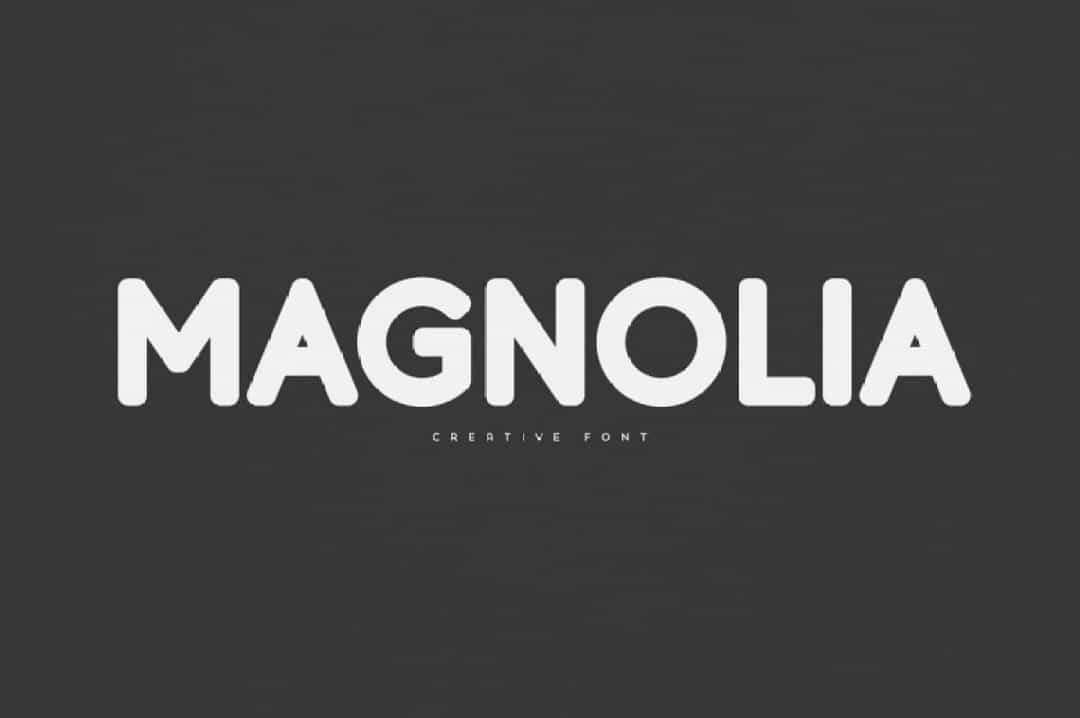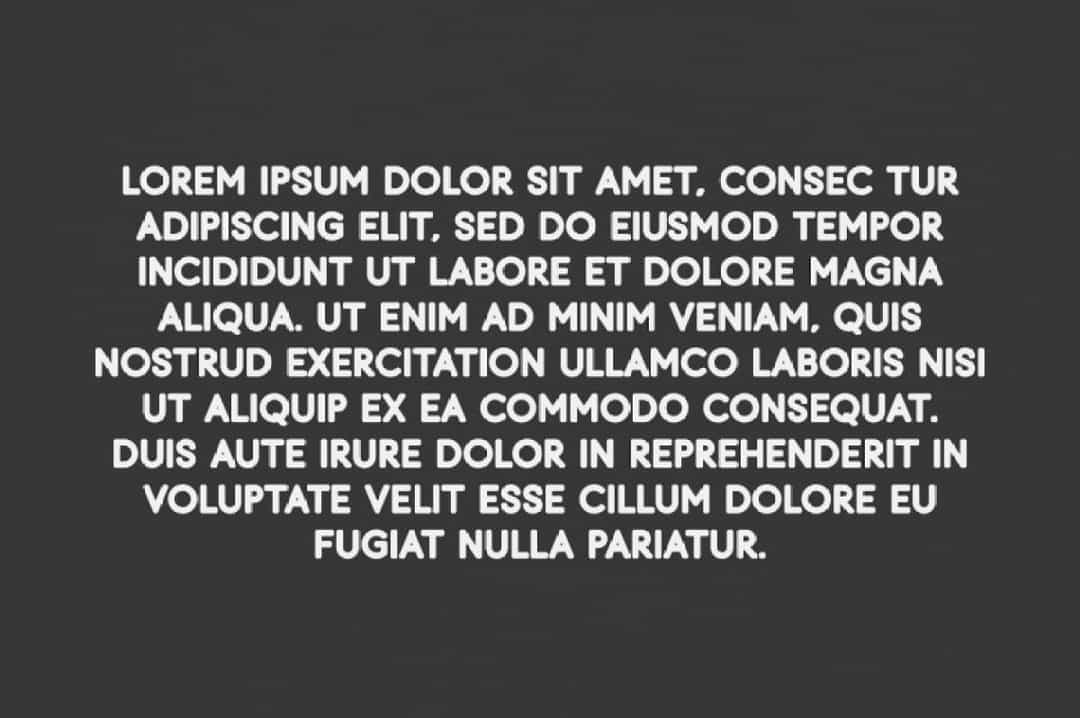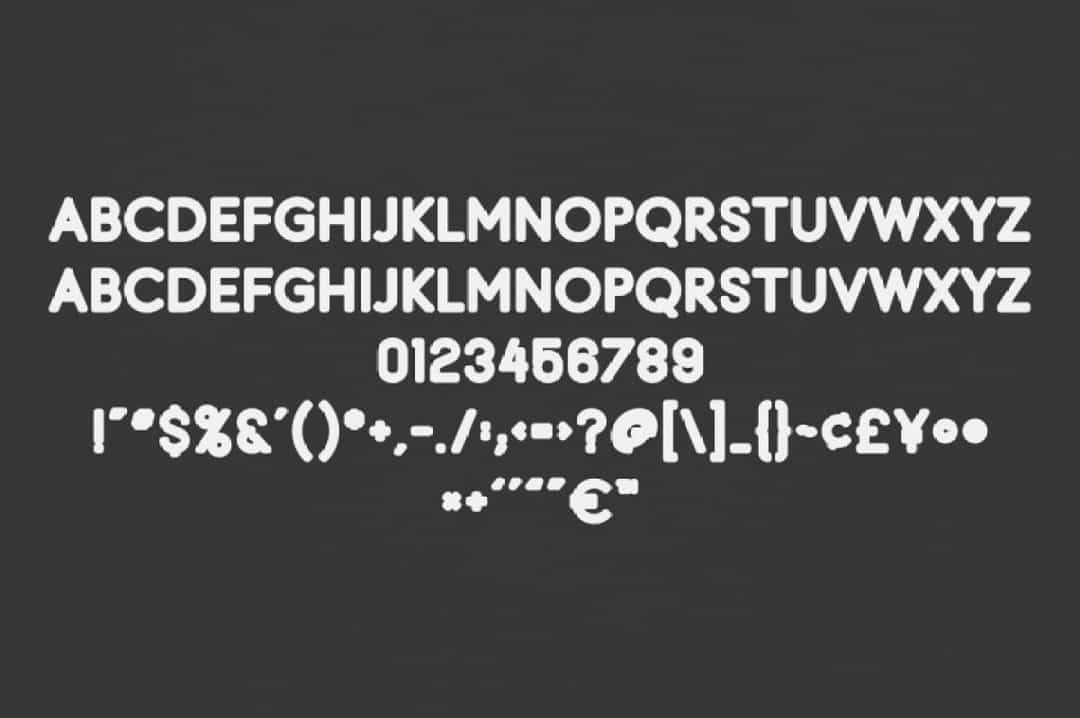
Magnolia font is a sophisticated yet flexible sans serif font that will add flair to your typography! Perfect for home-ware projects, branding designs, packaging designs for products magazines and newspaper headlines; as well as simply being used as an elegant text overlay on photos!